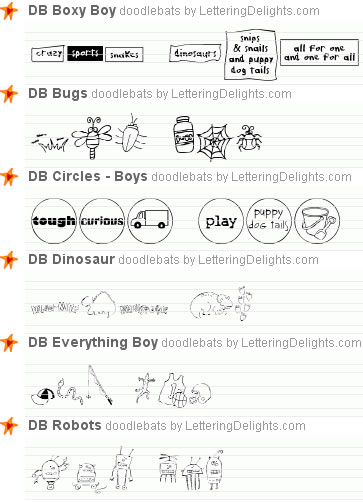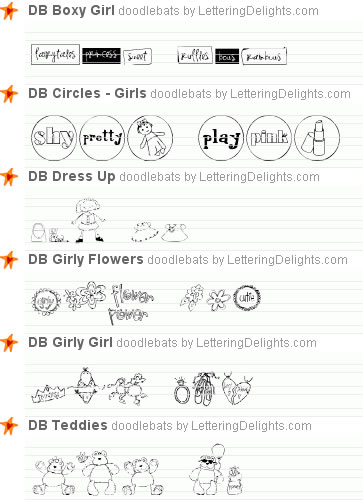
Autumn is my favorite time of year. The leaves are starting to
turn and there is a nip in the air. I love the contrast
of deep, rich colors and cool air. The wonderful aromas
fill the senses. Pumpkin patches, apple orchards, football
games and corn fields; there is so much to see and do and
enjoy.
Similarly, the new Lettering Delights Super
Sampler Bundle is packed full
of designs to delight the senses. The Super Sample Bundle
includes 5 sets of all new alphabets & journaling
delights along with 5 fonts, as well as new ploppers and
tags. It's everything you would get in a Lettering Delights
CD package!
The most amazing thing about the Super Sampler Bundle?
Super Sampler Bundle is full of so many great products
So while you are enjoying the sights and sounds of fall,
be sure to enjoy everything new at Lettering Delights.
Read on for even more!
2.
Abundant Autumn Bundle |
Make an impression with
the bold designs and rich autumn colors of the alphabets
in the Abundant
Autumn Bundle.
Combine
each alphabet with its matching Journaling Delight and
create everything you'll need for an autumn full of abundant
creative possibilities. Each Journaling delight includes
15 images including borders, clip art and words.
| The all new Abundant Autumn Bundle is
3.
States Bundle – SC, SD, TN |
represented boldly in
alphabets and Journaling Delights, including corners, title
boxes, tags, toppers, photo boxes and adornments. Make
your vacation last a lifetime with memories preserved with
the States Bundle – SC, SD, TN.
| States Bundle – SC, SD,
TN is
4.
DoodleBat Bundles For Boys & Girls |
Blue or pink, boy or girl,
the new DoodleBat
Bundles are Boys and
Girls. DoodleBats are the perfect tool to have at your
fingertips for all your creative projects. Create cards,
layouts, invitations, party favors, tags and more with
the multi-purpose DoodleBat.
5.